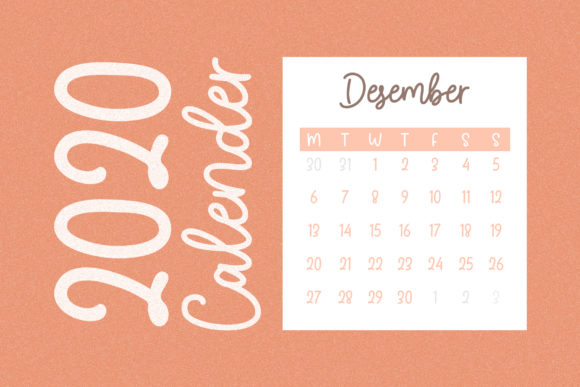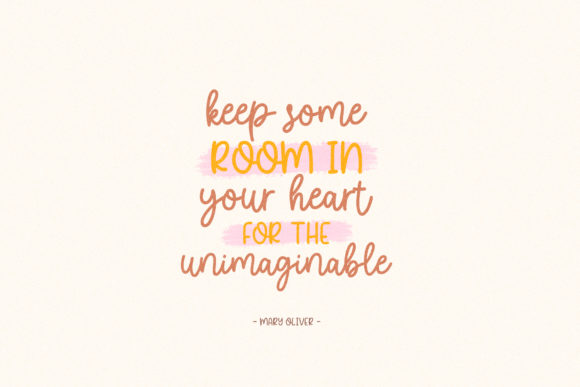
Focus Quotes Duo Font
db-ku.com - Script & Handwritten -- Focus Quotes Duo is a fun duo font, perfect for creating quotes, craft, wedding, logos, or just adding a hand-written touch to any project!